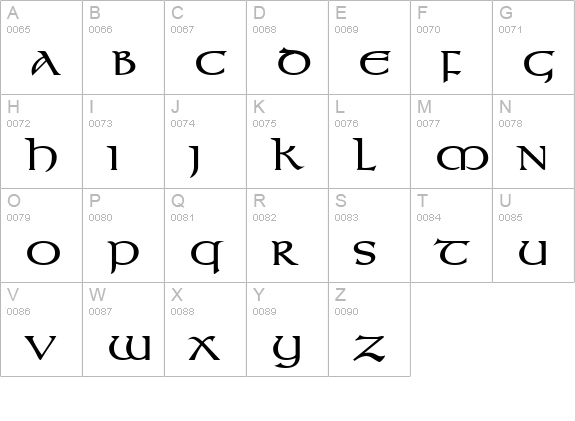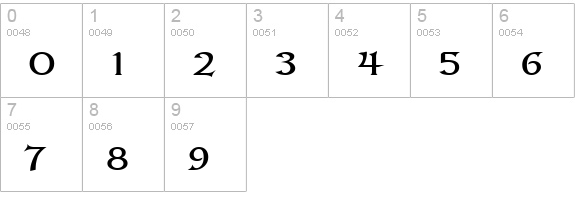
Kelt Wide Bold is a strong, high-contrast, extended-width variant in the Kelt typeface family \xE2\x80\x94 well suited to headlines, attention-grabbing titles, and strong calls-to-action.
Introducing Kelt Wide Bold, a captivating and versatile typeface that exudes confidence and modernity. Designed with bold strokes and a wide character structure, this font commands attention and makes a strong impact in any design project. Kelt Wide Bold is perfect for headlines, titles, and branding materials that require a bold and striking presence. Its strong and assertive letterforms communicate a sense of strength and power, while its wide proportions provide a balanced and harmonious appearance. This font is meticulously crafted to ensure legibility and readability, even at smaller sizes. The clean and crisp lines of Kelt Wide Bold make it suitable for both digital and print mediums, allowing it to shine in various contexts, from websites and mobile apps to posters and advertisements. One of the best features of Kelt Wide Bold is that it is freely available to download at FontsMarket.com. This means that designers and creatives can easily access this remarkable font without any restrictions. Whether you're a professional designer or a passionate hobbyist, Kelt Wide Bold offers you the opportunity to enhance your designs with a premium-quality font, completely free of charge. So why wait? Elevate your designs and make a lasting impression with Kelt Wide Bold. Download it now from FontsMarket.com and unlock the limitless creative possibilities that this font has to offer.